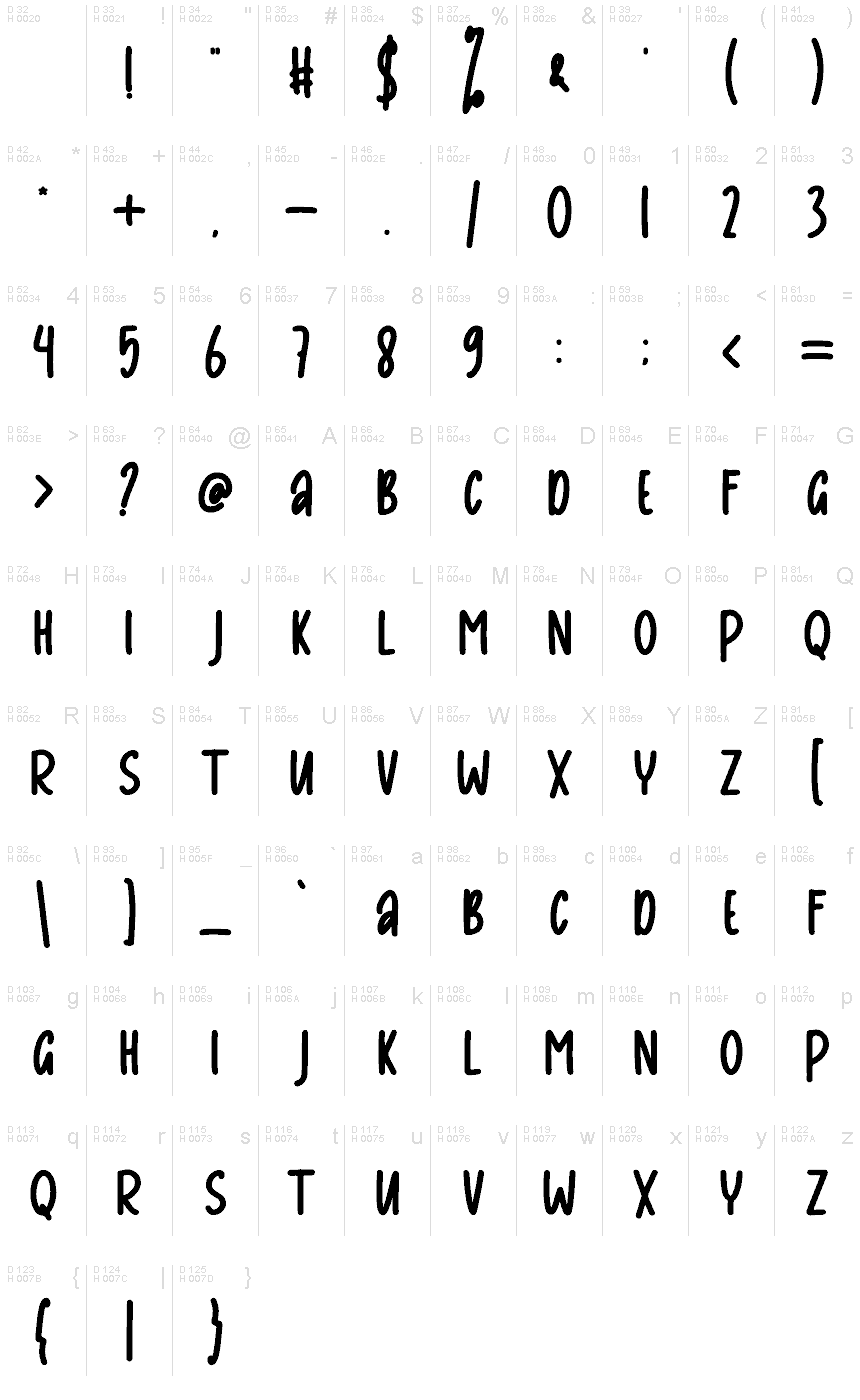
Alyale
Alyale font by Skiiller Studio is a handwritten condensed font that exudes a casual charm and friendly mood. Its rounded and organic feel delivers an approachable vibe that fits perfectly in modern aesthetic projects. The font’s design takes on natural shapes reminiscent of daily writing; they help adding personality to whatever you are working on.